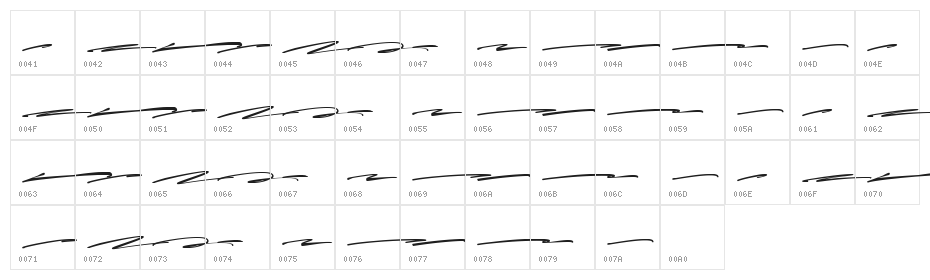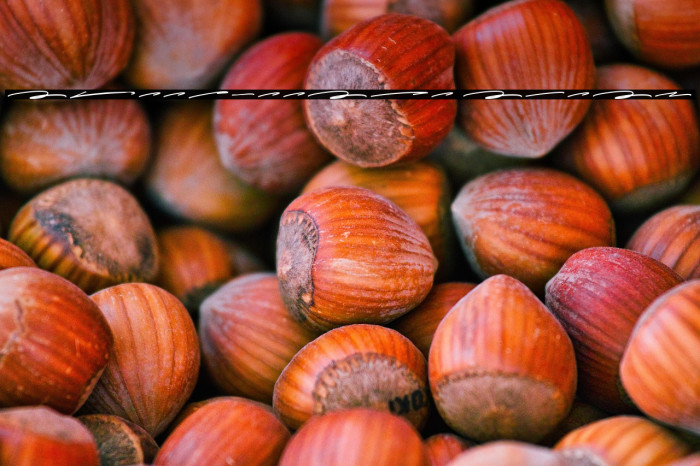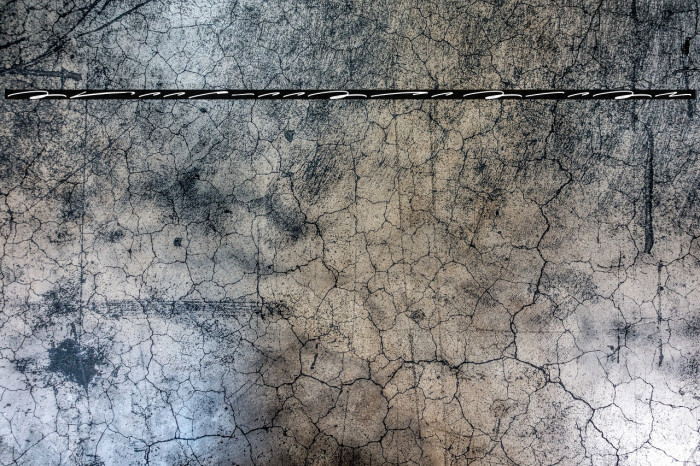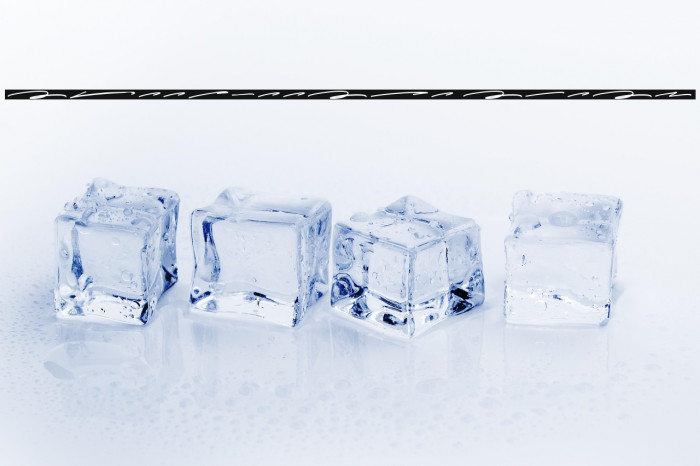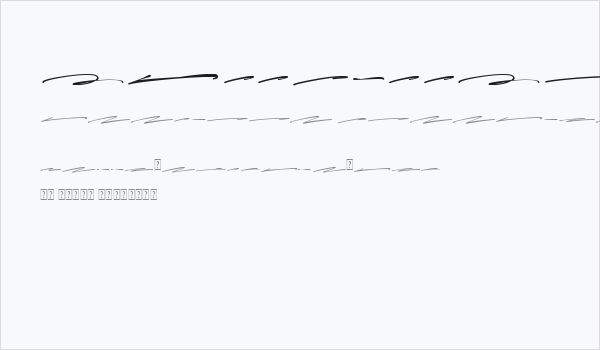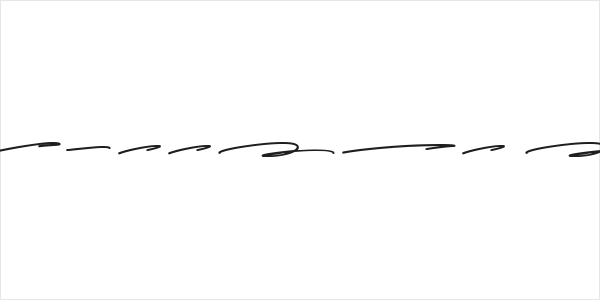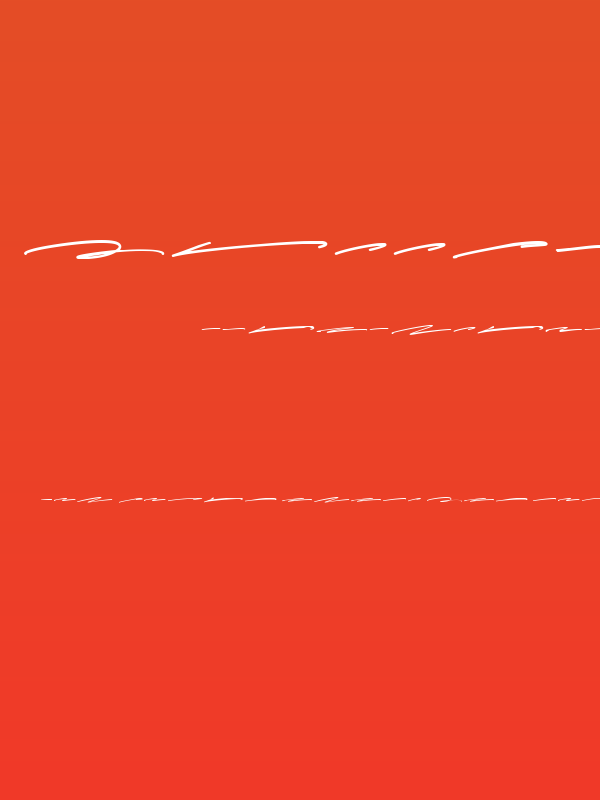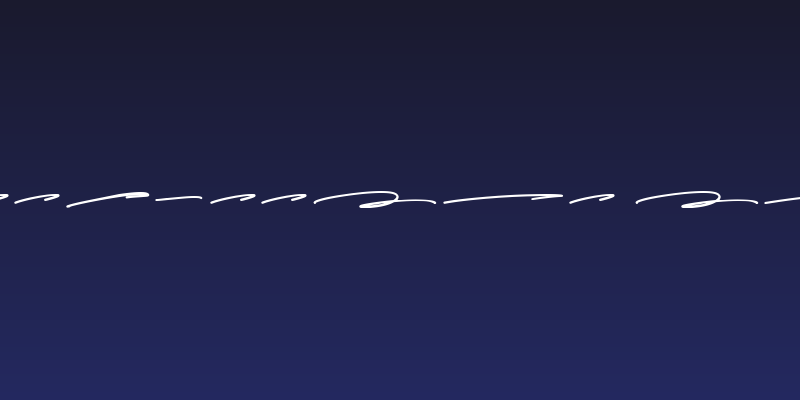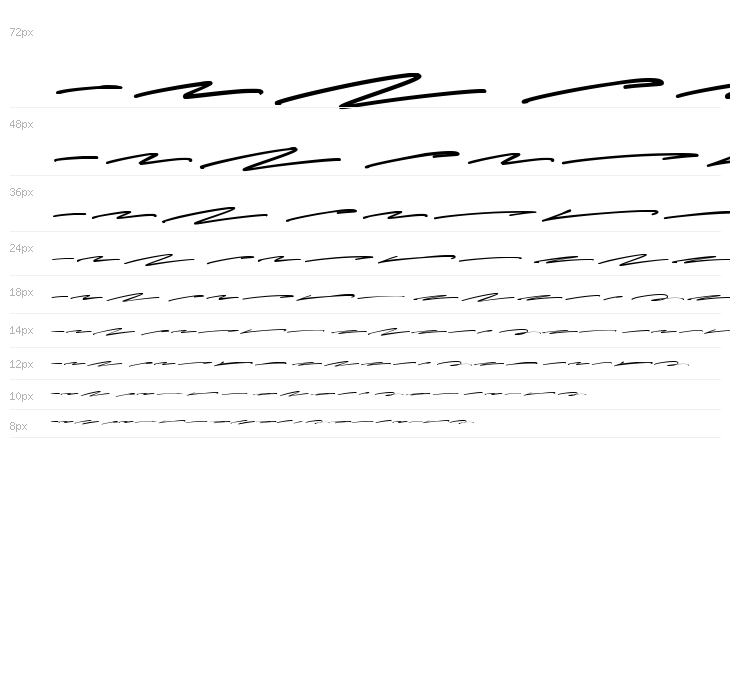
Scandynafia Swash Font
Scandynafia Swash Description
This font exudes elegance and sophistication with its flowing, cursive style. The letters are interconnected with smooth, sweeping strokes that mimic the fluidity of handwriting. Each character is adorned with delicate swashes, adding a decorative flair that enhances its artistic appeal. The overall appearance is graceful and refined, making it ideal for projects that require a touch of class and creativity. The font's unique style is perfect for creating eye-catching designs that stand out.